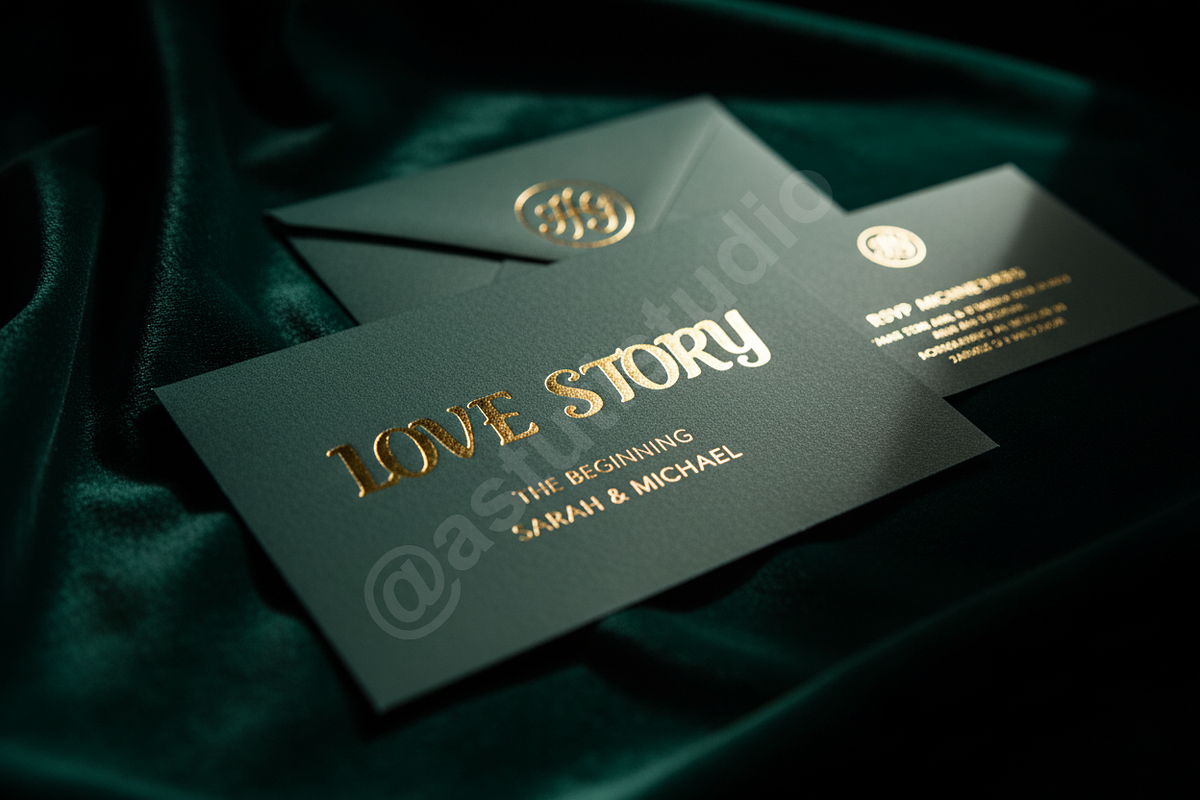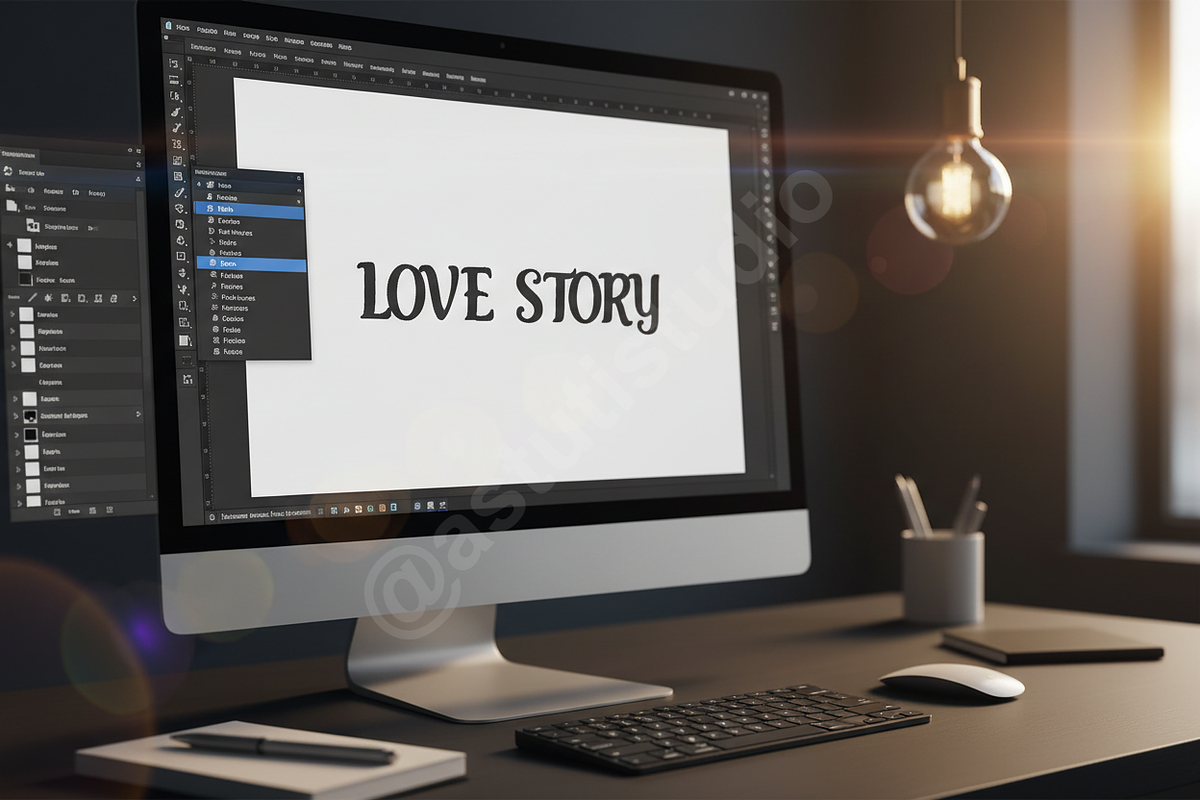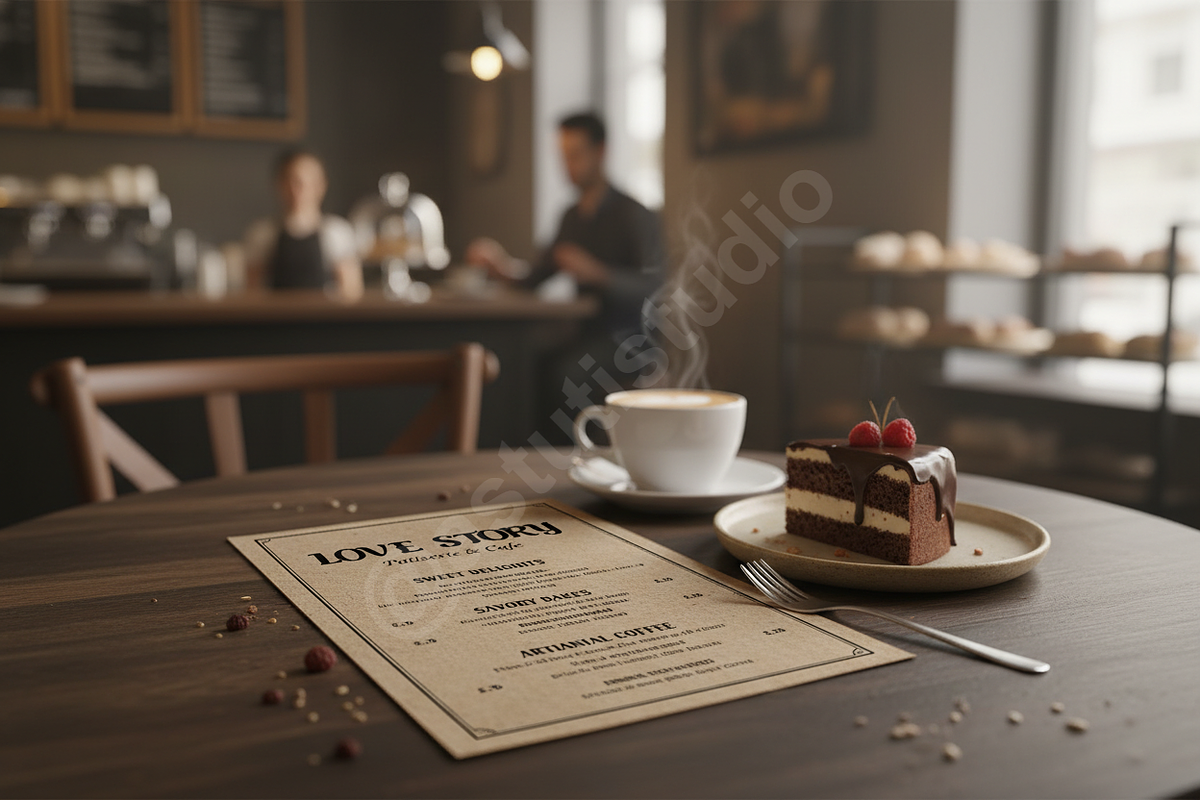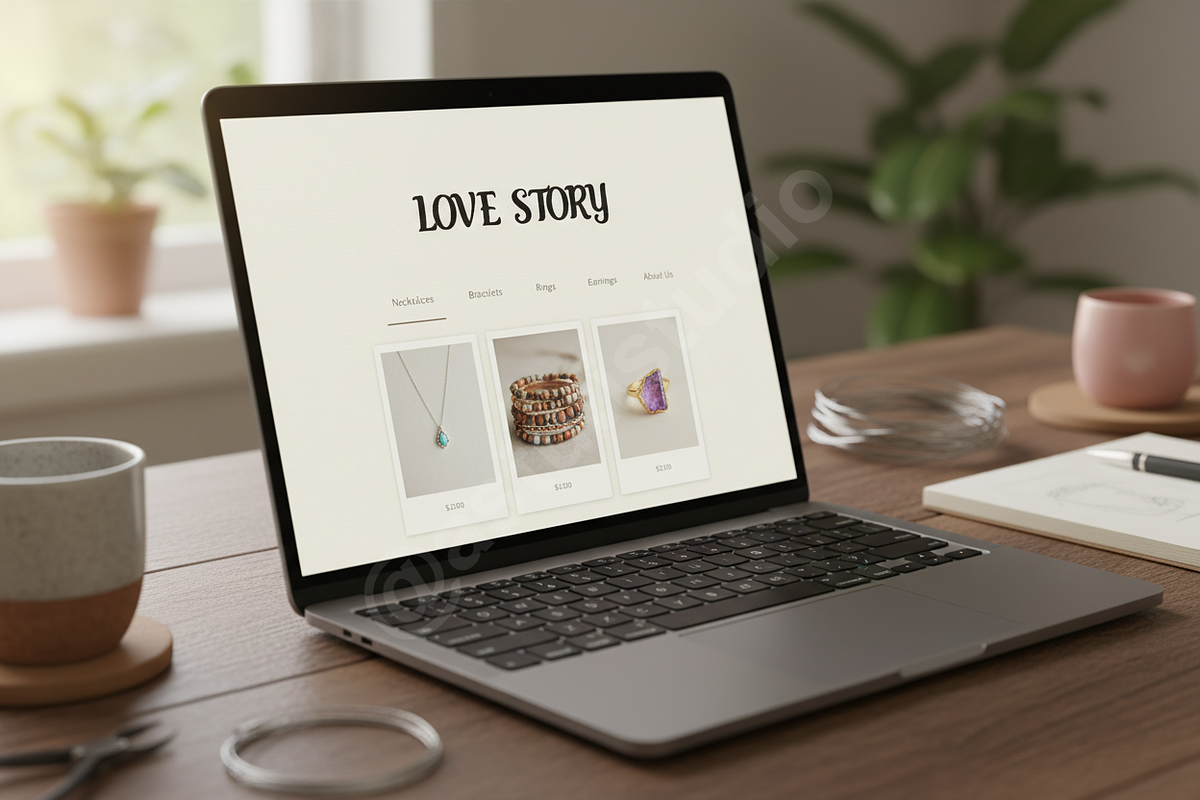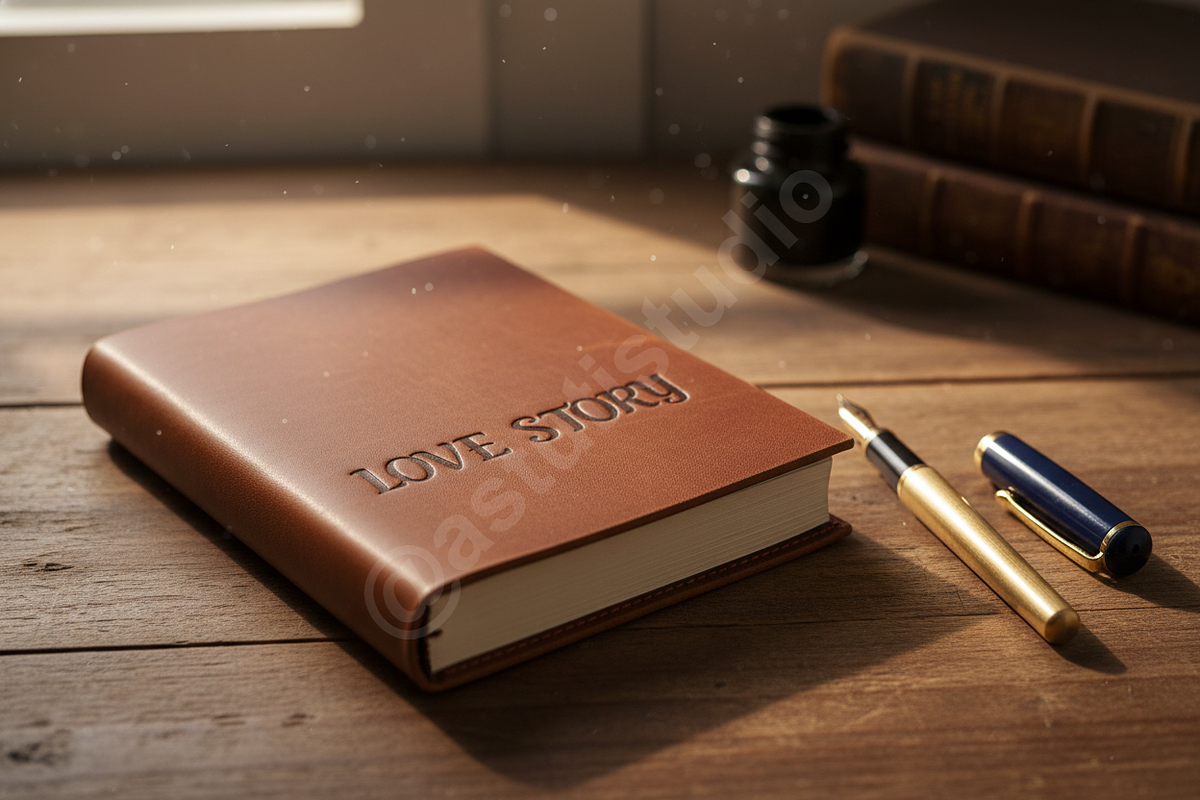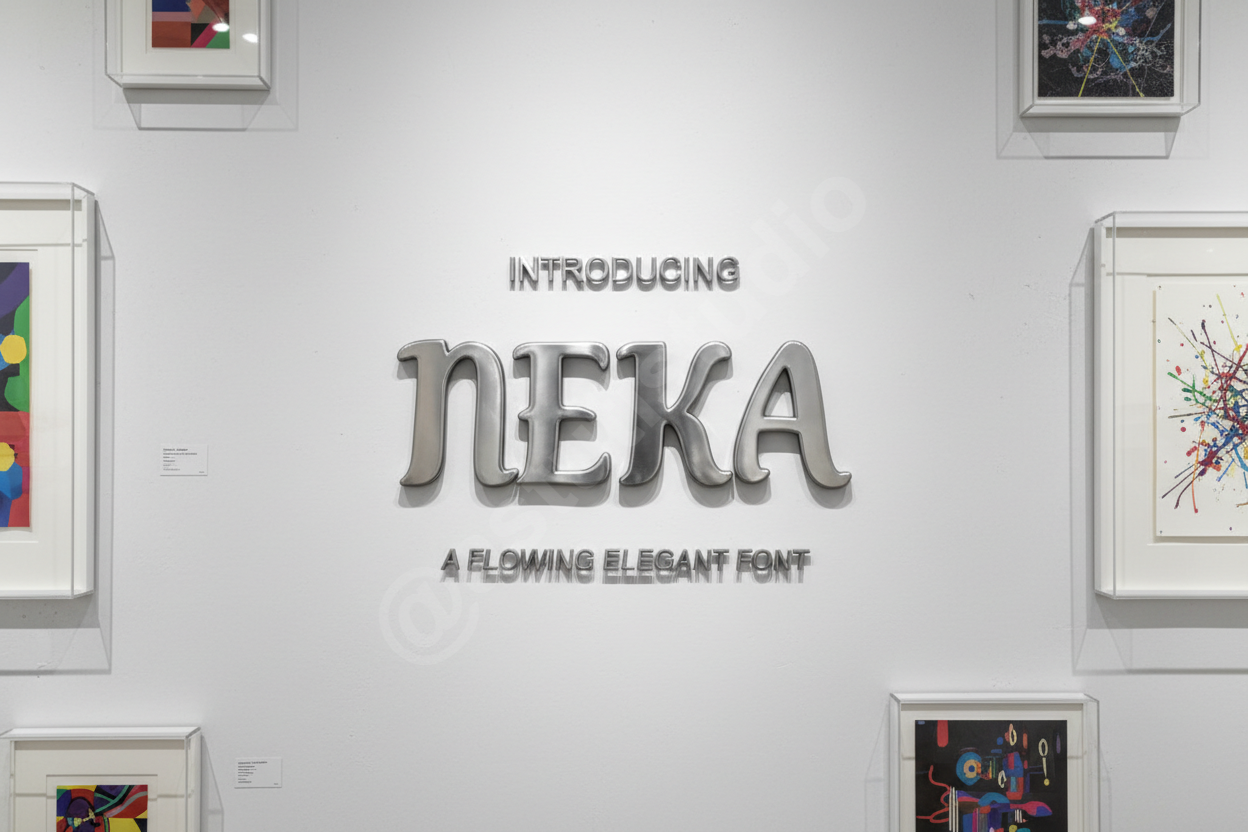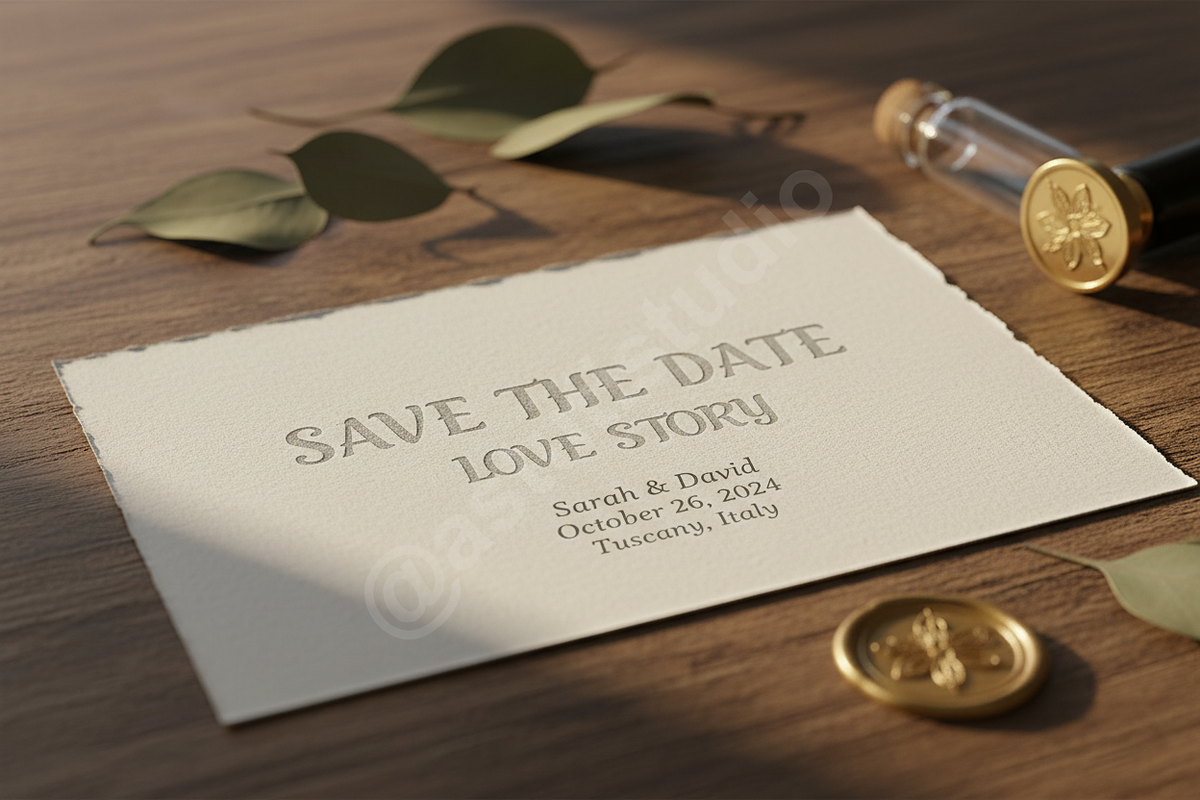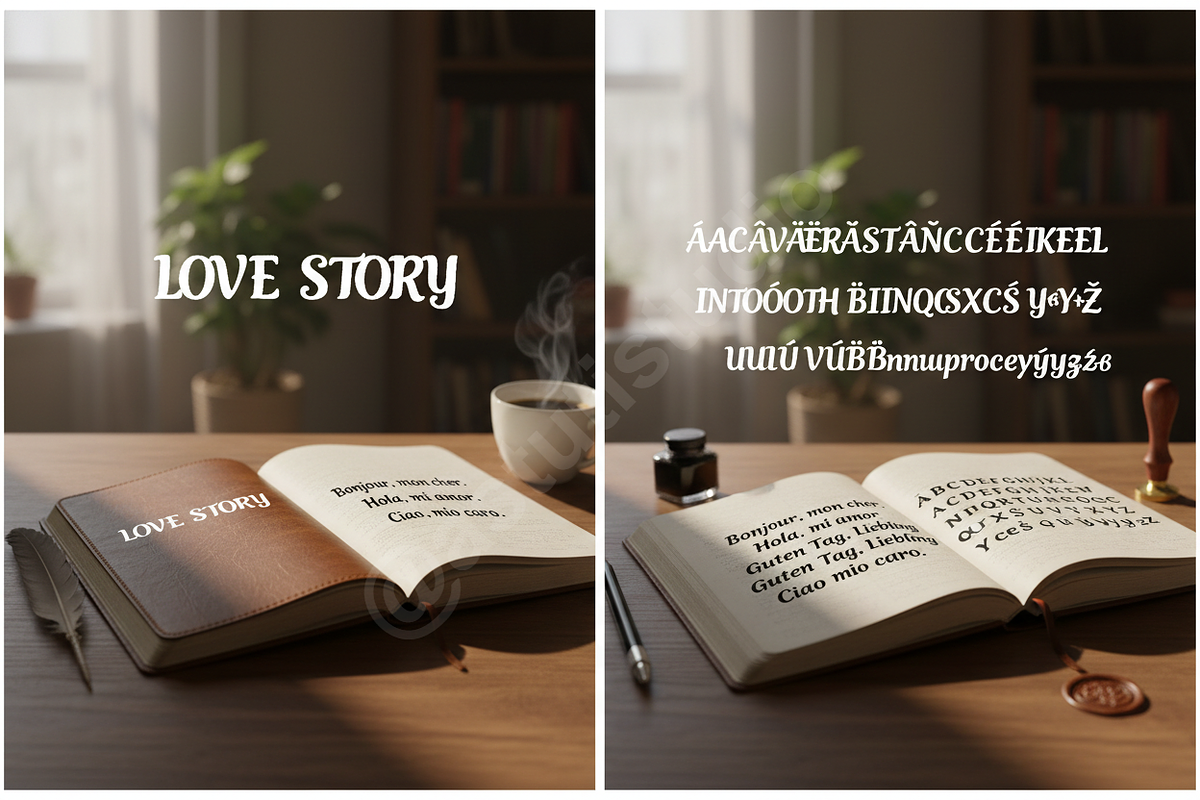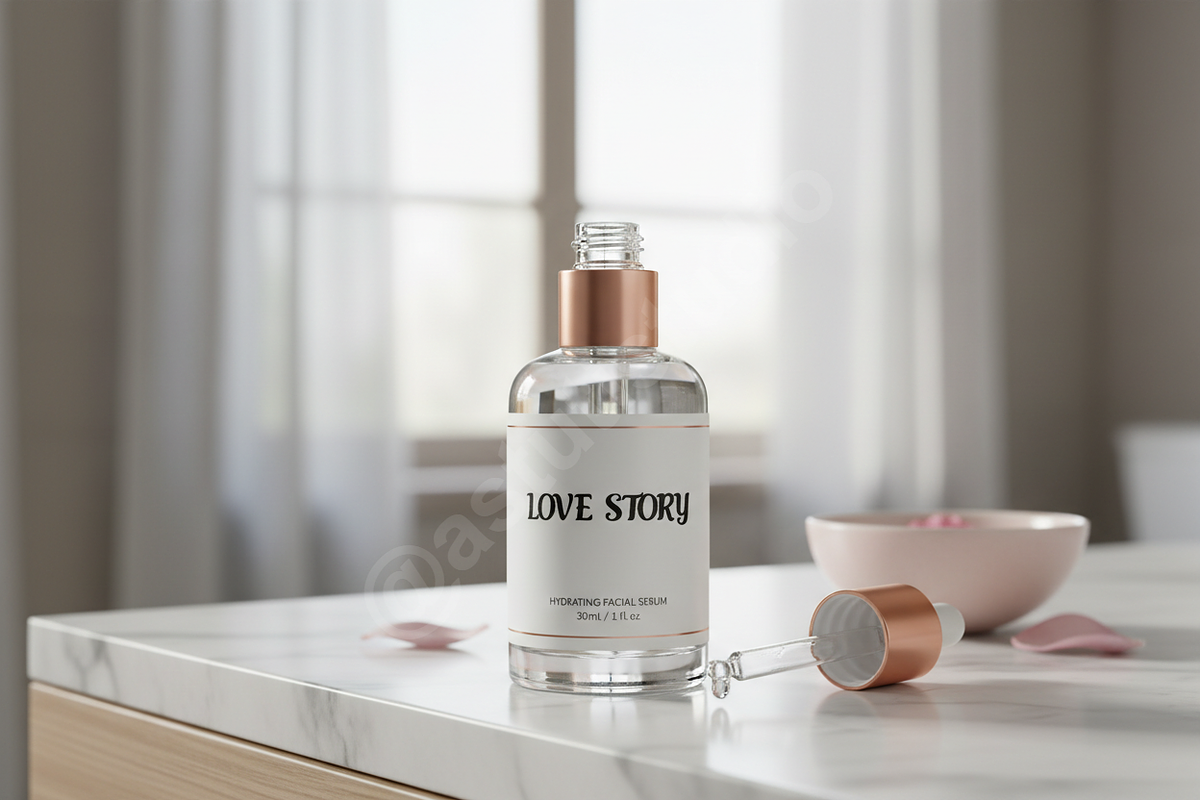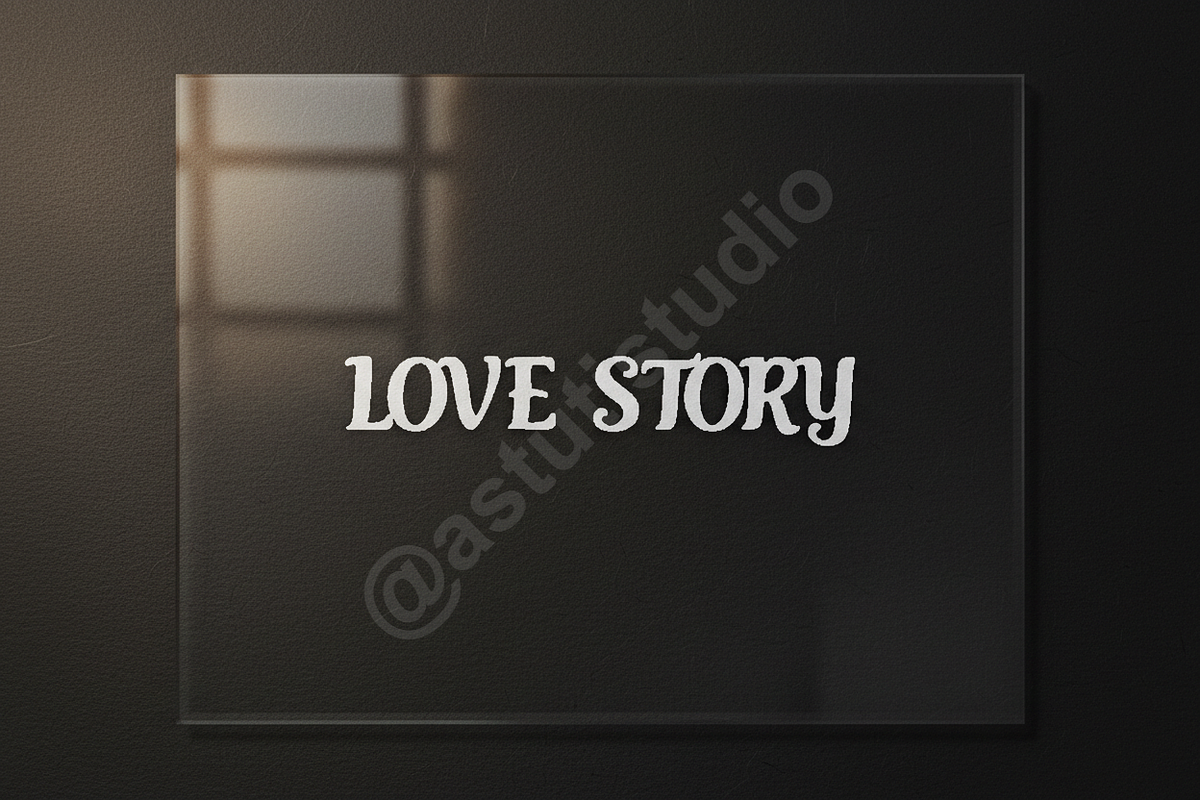
Neka - Elegant Modern Serif Typeface
INTRODUCTION
Neka is a sophisticated serif typeface meticulously crafted for high-end aesthetics and timeless elegance. With its balanced proportions and refined curves, Neka provides a luxurious touch to any design project. Whether you are building a premium brand identity, designing a high-fashion editorial, or creating captivating social media content, this font offers the versatility and grace required for a professional finish.
- Clean and sophisticated serif letterforms
- Optimized kerning and balanced spacing
- Extensive OpenType features including elegant ligatures
- Full multilingual support for international projects
- High contrast strokes for a premium editorial feel
- Perfectly suited for large display headings and small body text